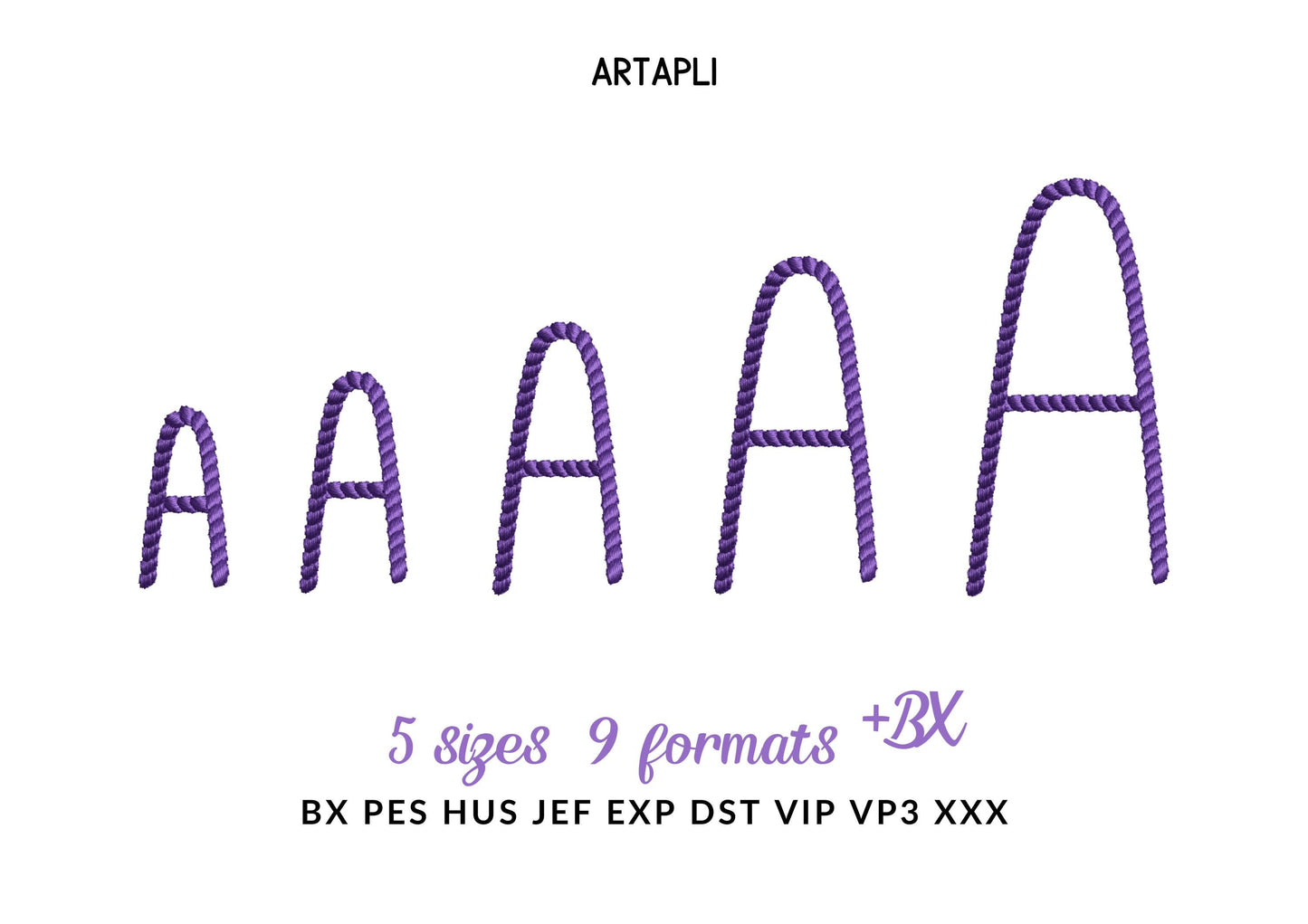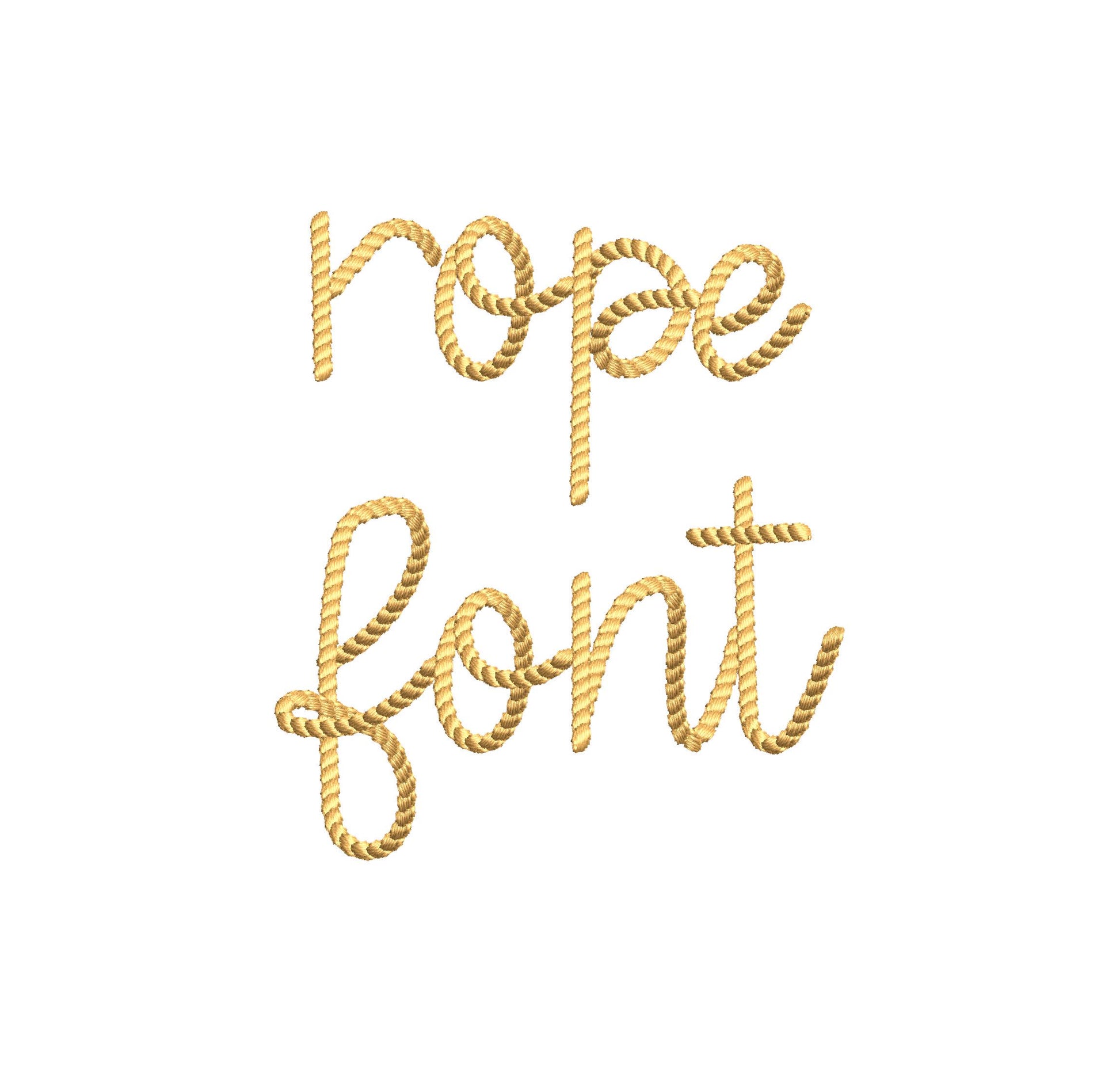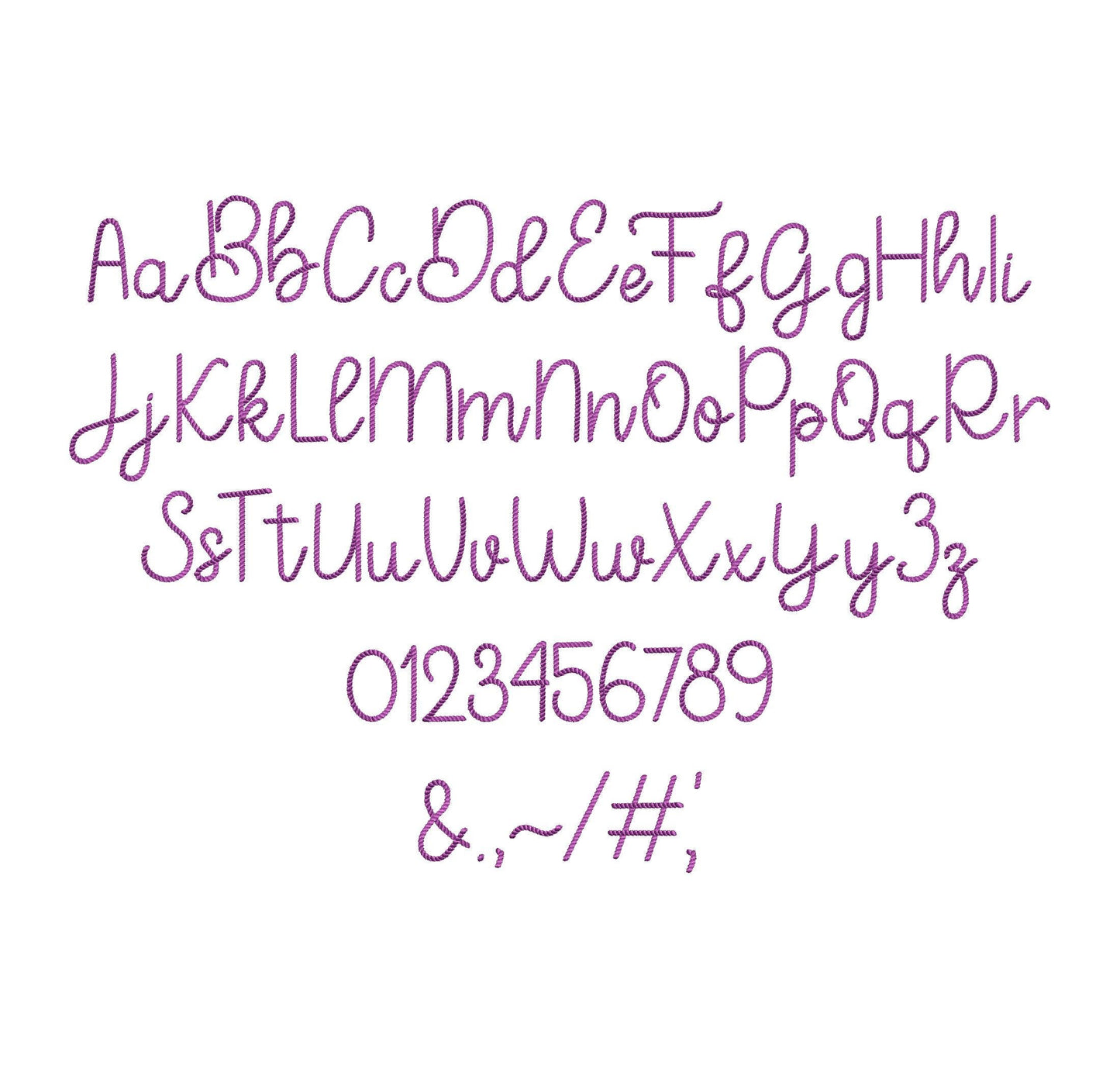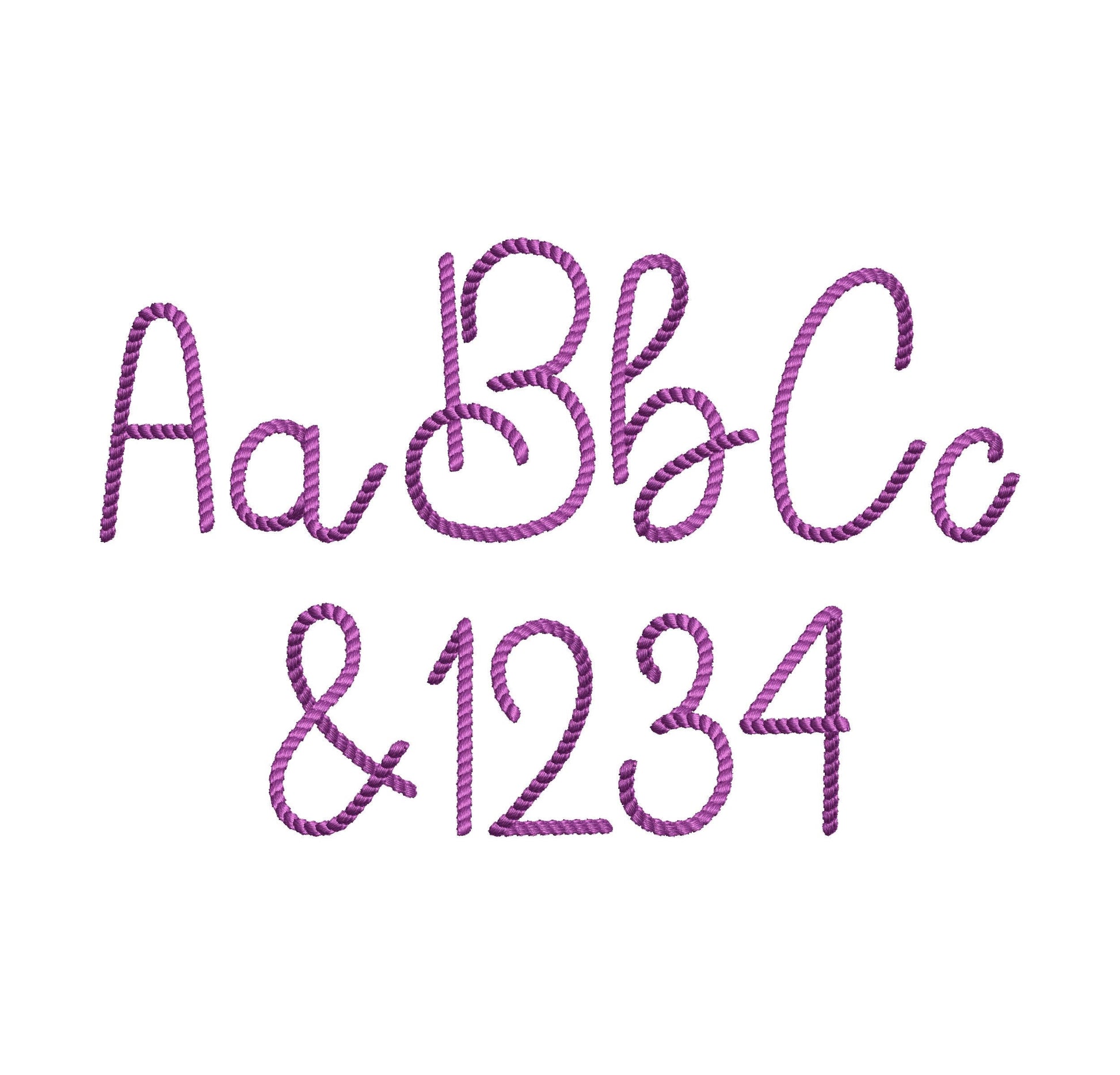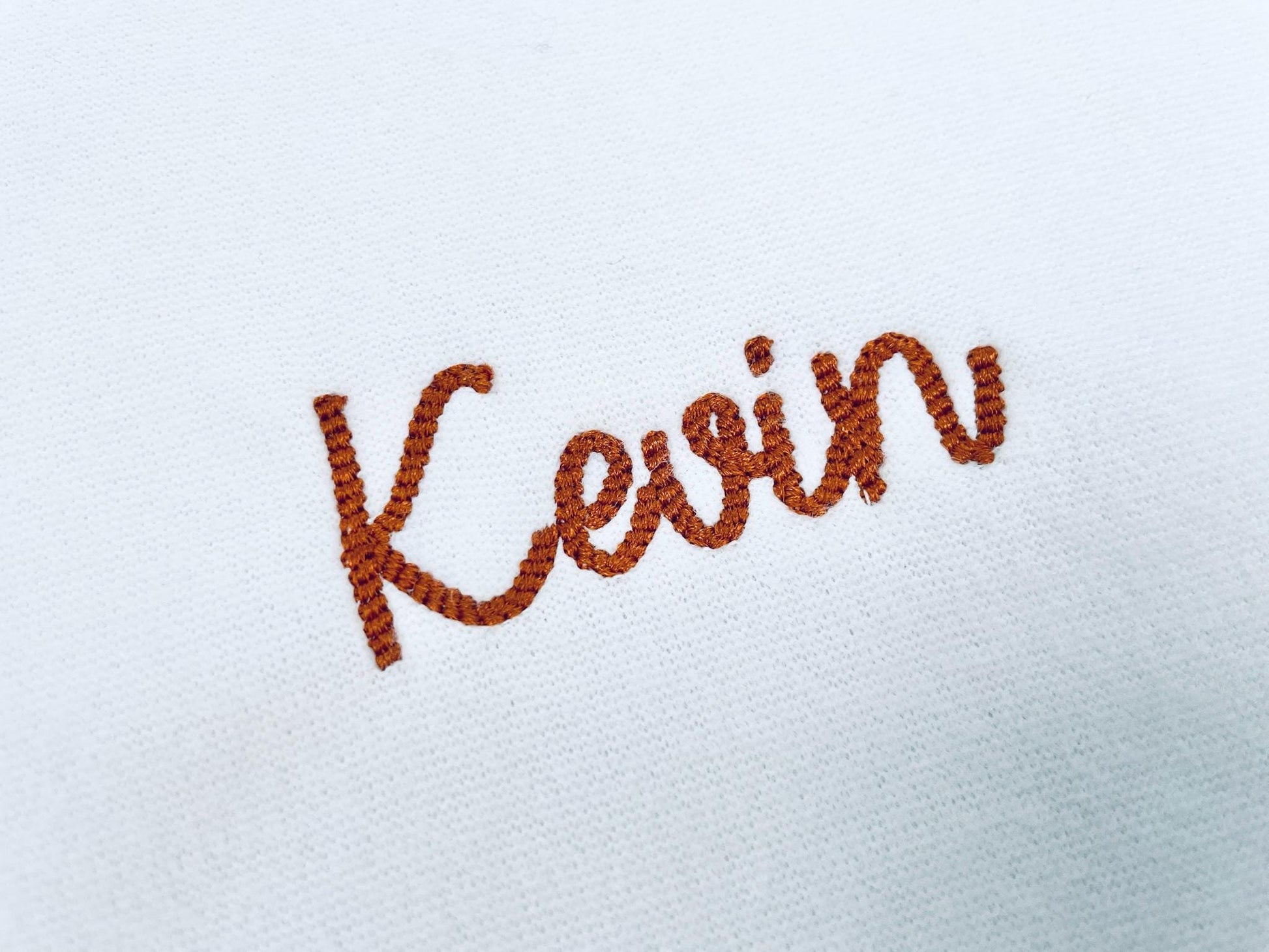
Or click to open the linkA mini thin rope stitch script with a cowboy lasso look. Fun for western shirts, small names and gifts.
Uppercase and lowercase letters, numbers 0 to 9 and punctuation, in five mini sizes: 0.9, 1.1, 1.3, 1.7 and 2.1 inches.